Font Typesetting Function 01: “What are the OpenType Features?”
For example, the shapes of the small script “ゃ,” and the prolonged sound mark “ー” differ when the character string of “にゃー” is placed in horizontal typesetting and vertical typesetting. As it is hardly a surprising event, it may not be normally recognized. However, it is one of the effects dealt with in OpenType features.
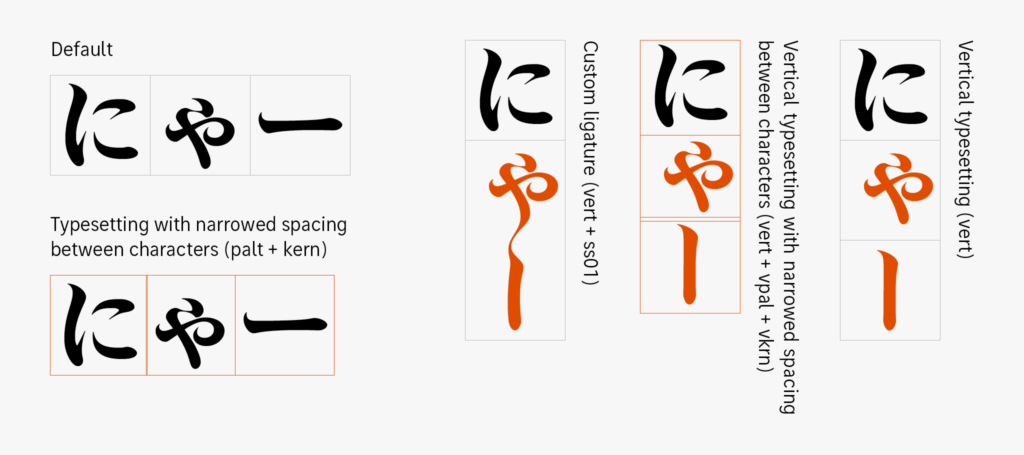
The OpenType features built-in information in OpenType fonts to arrange characters for ease of reading or beauty. There is a four-character alphanumeric name called a “feature tag” in each function. In the previous example of vertical typesetting, “vert” is referenced.
In the text with vertical typesetting, “vert” is automatically applied. The OpenType features are also used to achieve a typesetting style in accordance with the user intention, such as typesetting with narrowed spacing between characters.
Kinshachi Font Hime is used in the figure. In this font, the custom glyph can be selected for combination, such as ”ゃー,” etc. To similarly display a custom glyph in Kinshachi Font Hime, the OpenType feature “Style Set 1 (ss01)” is used.